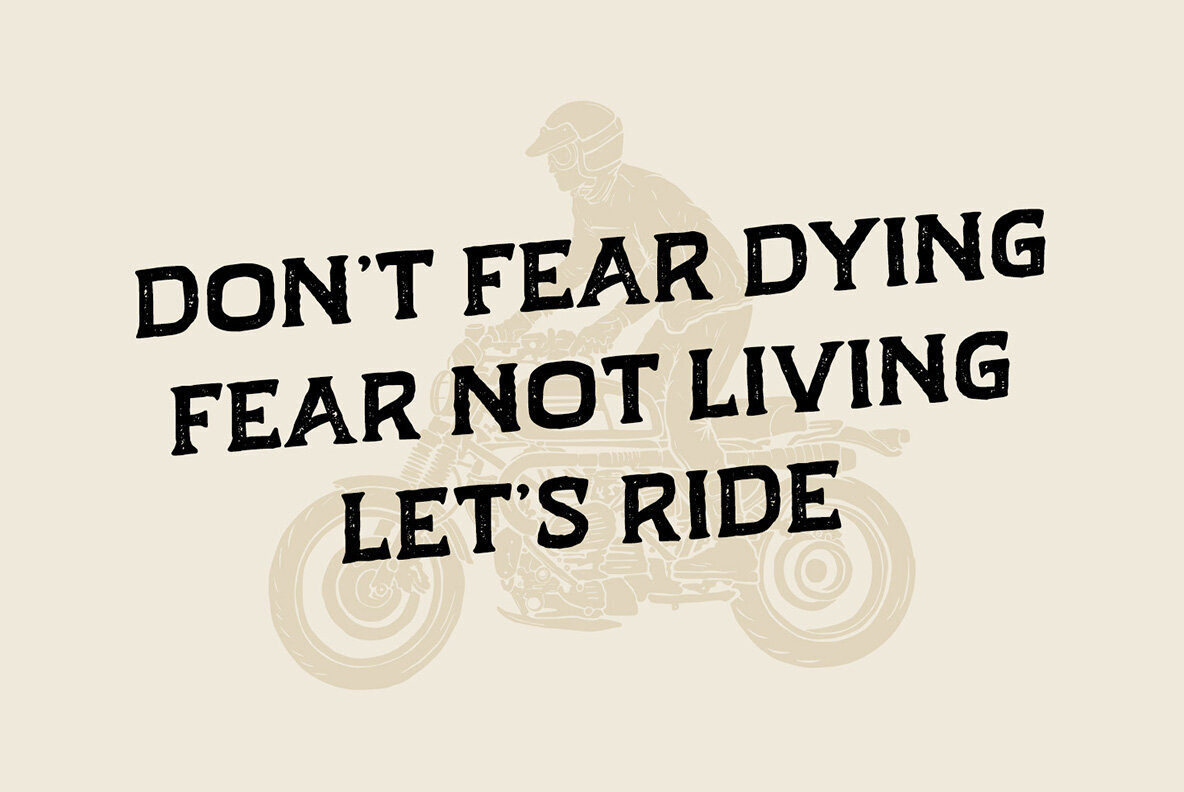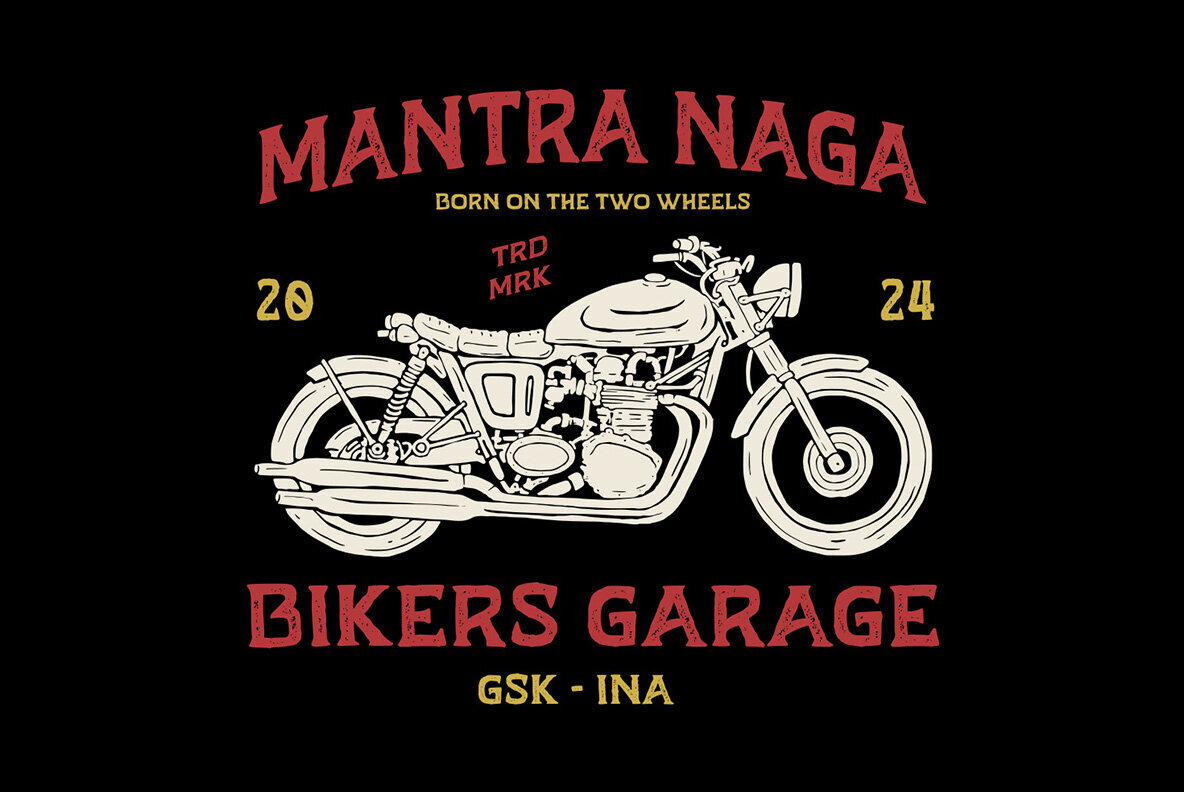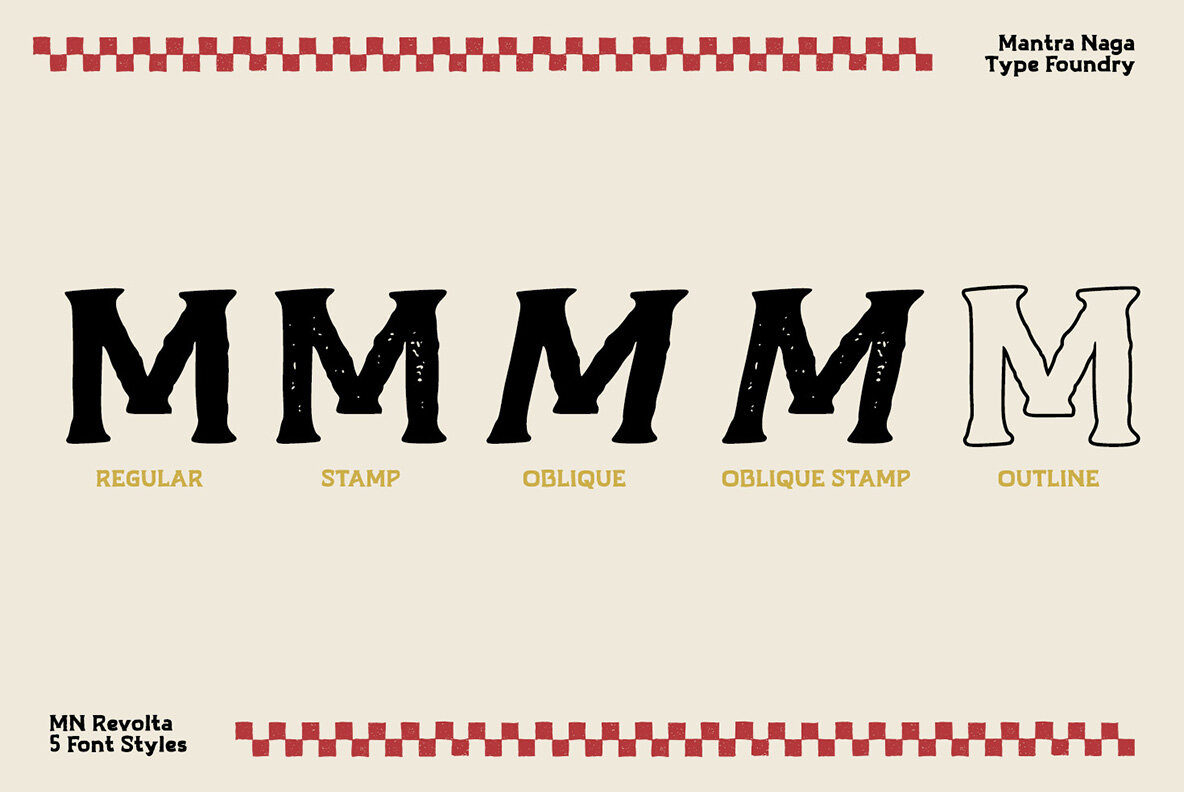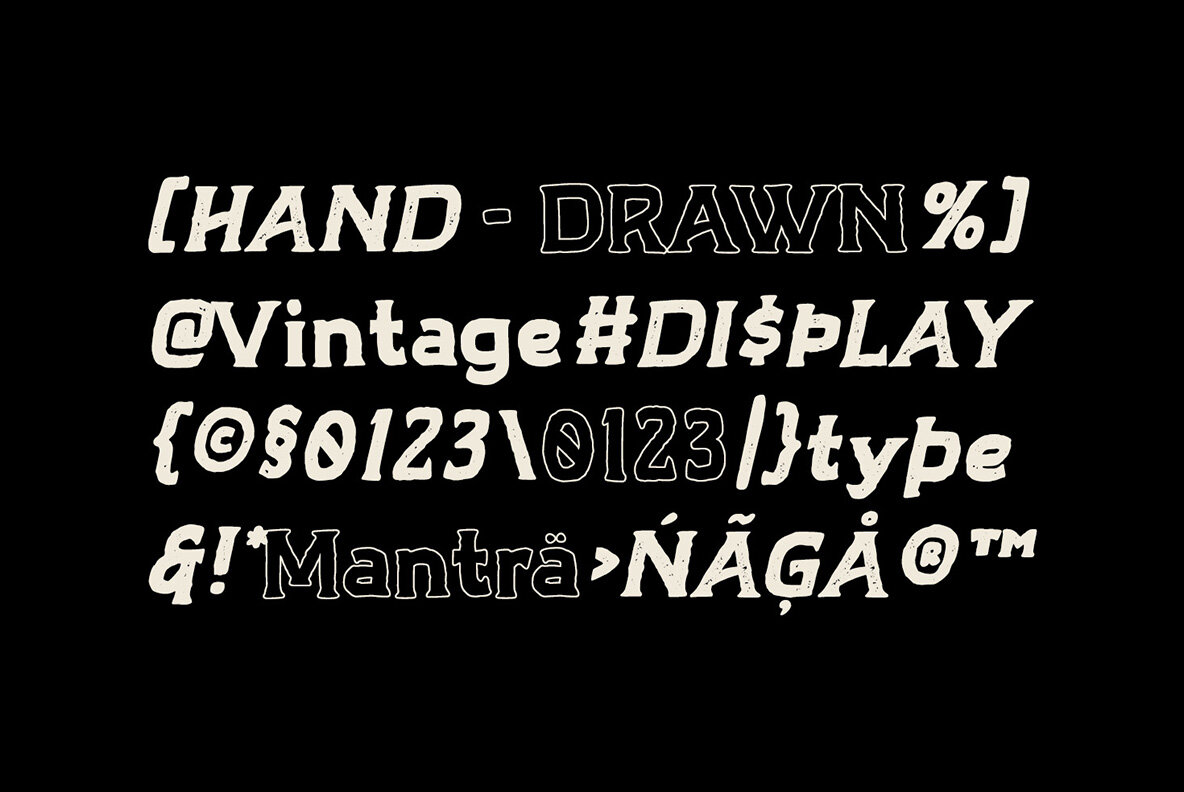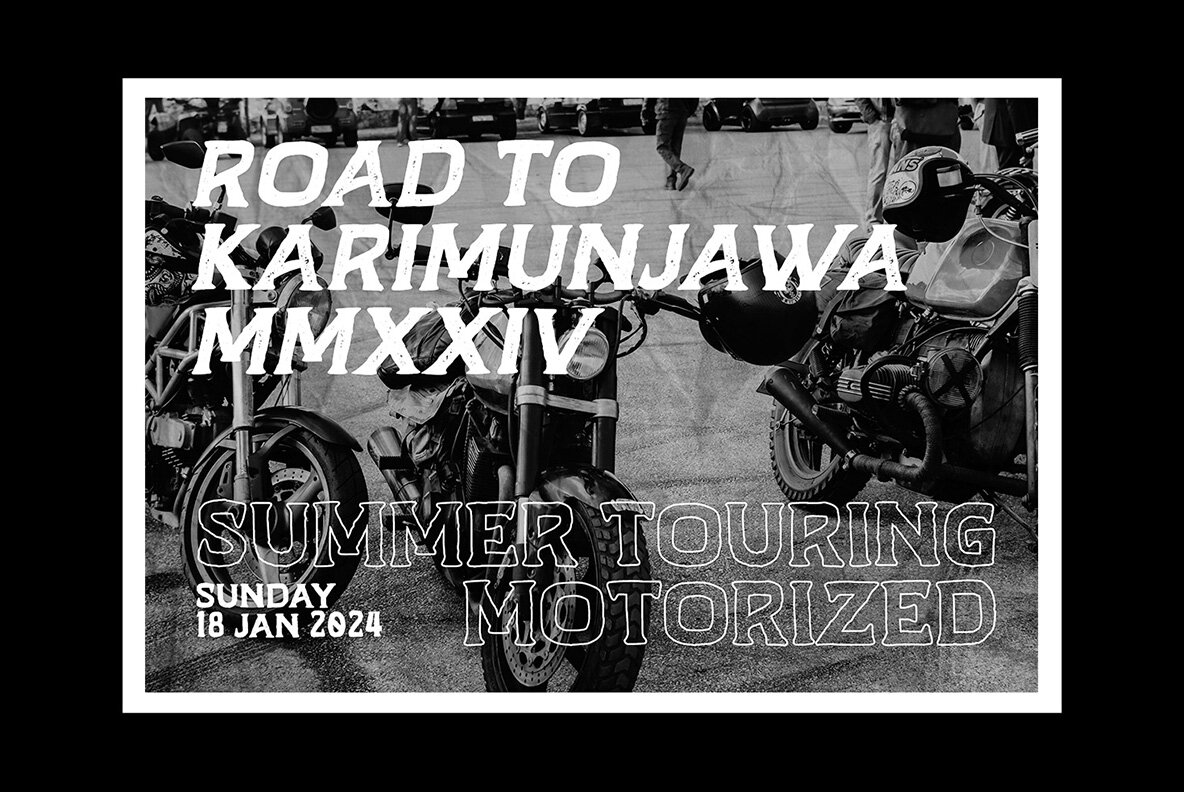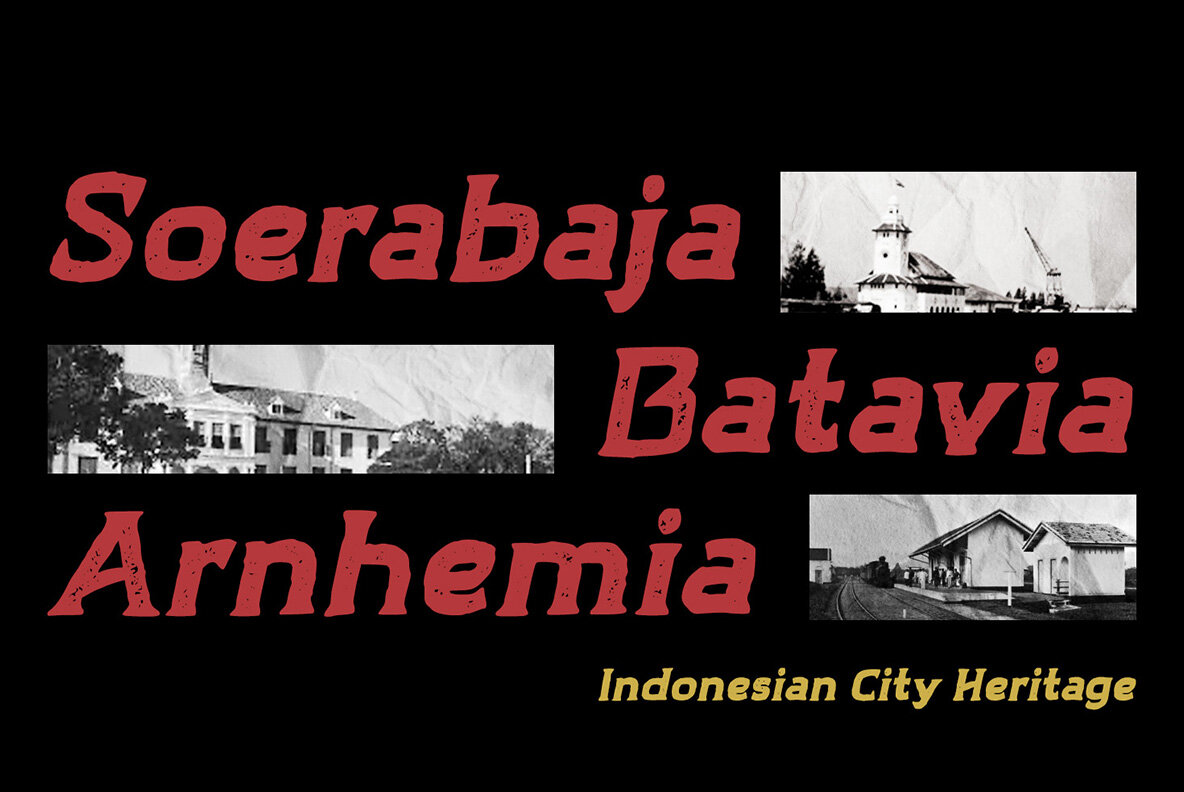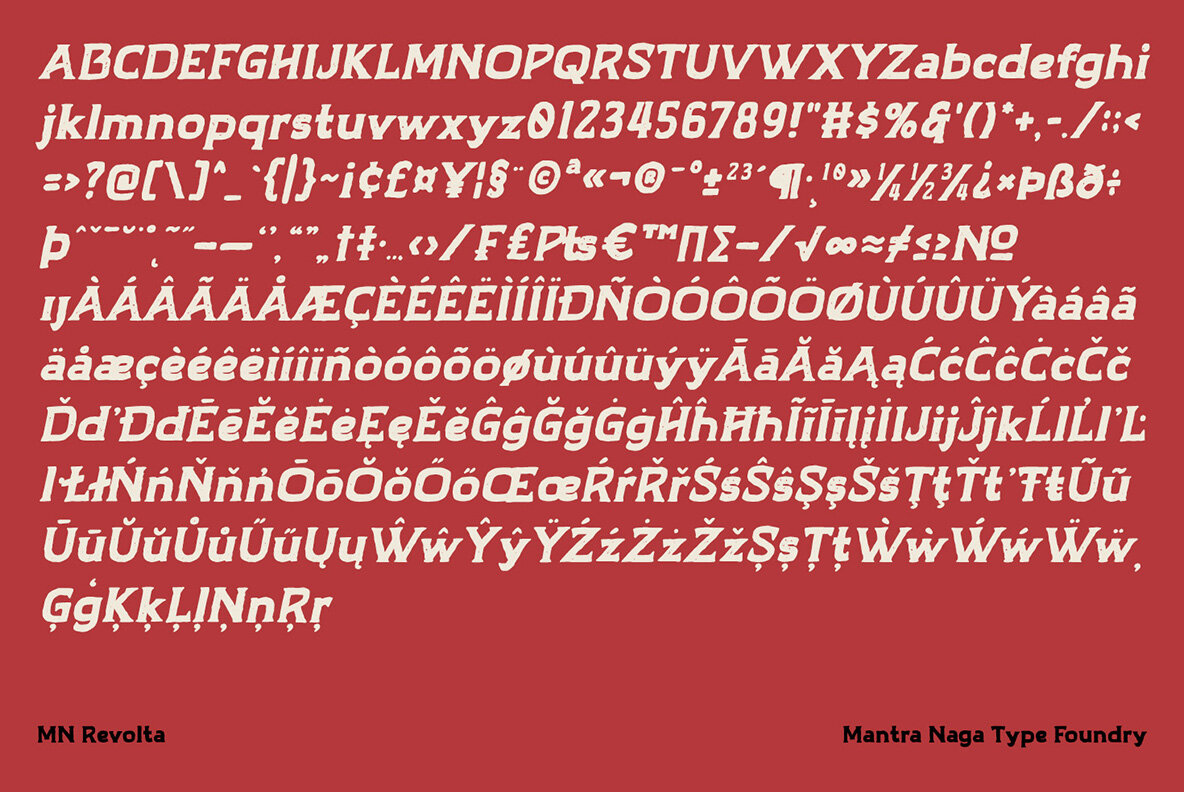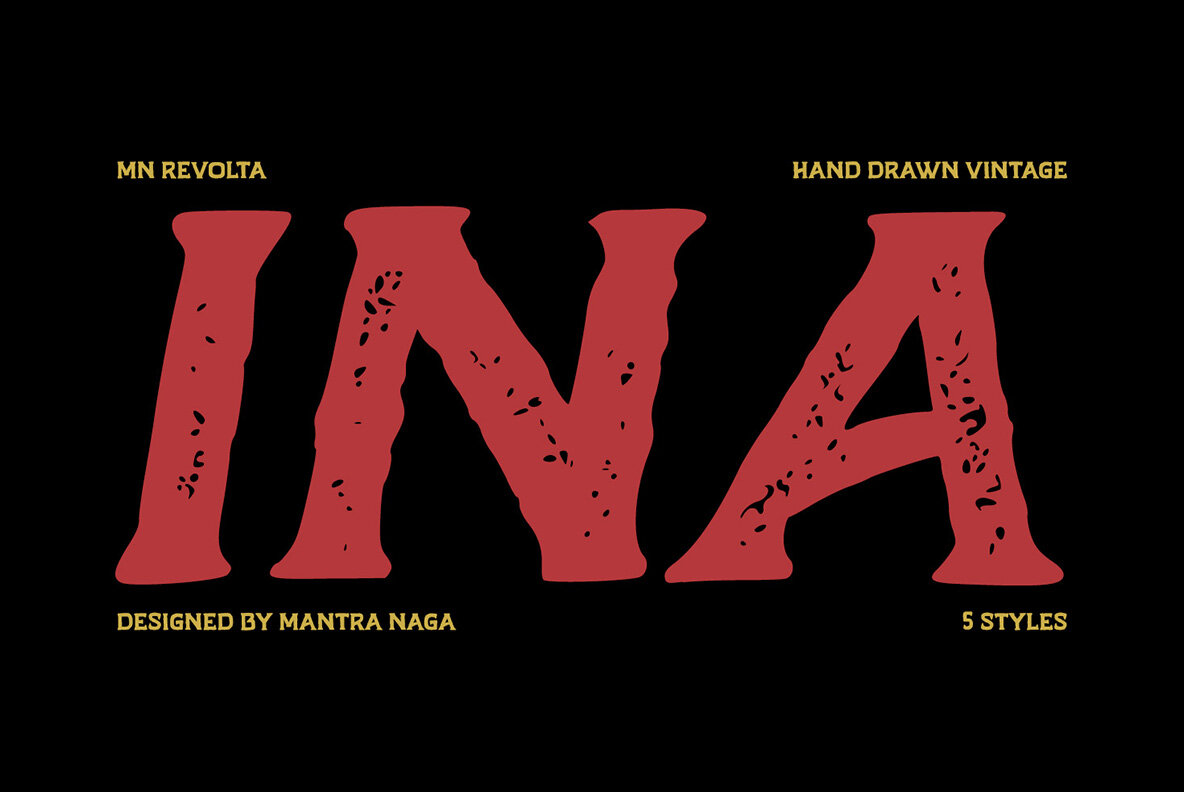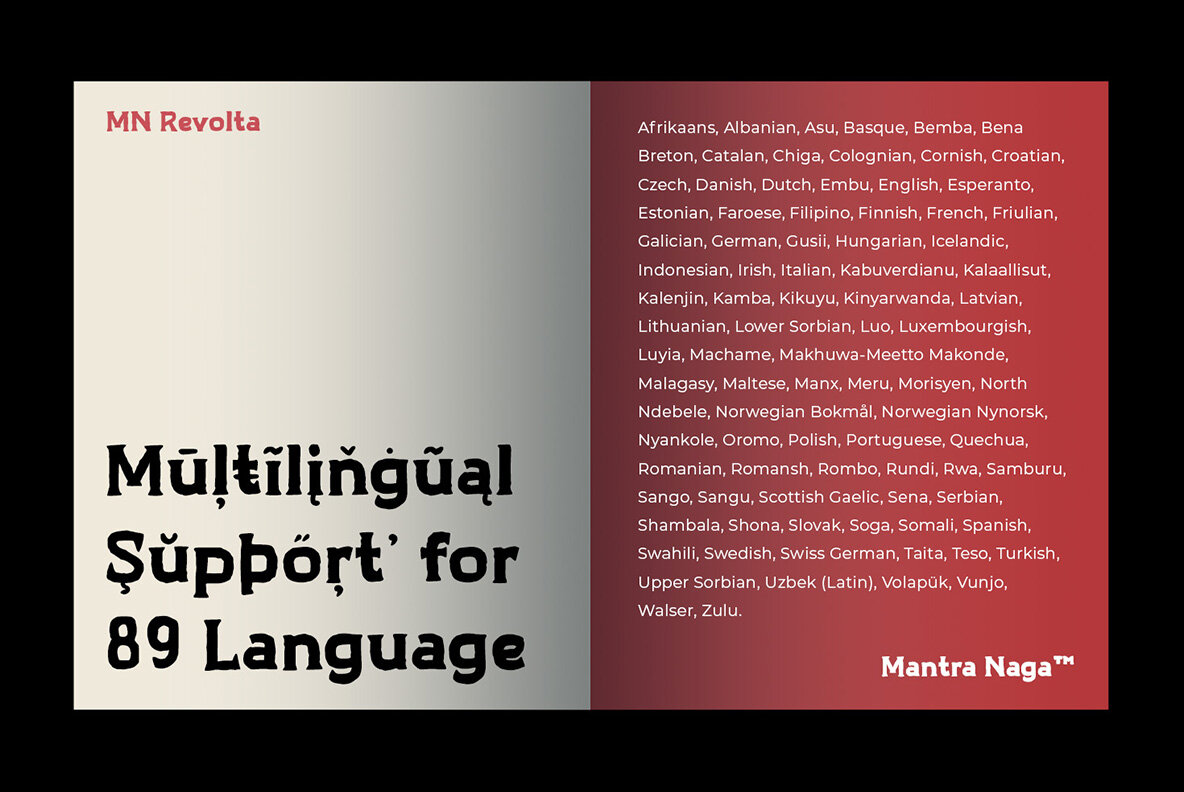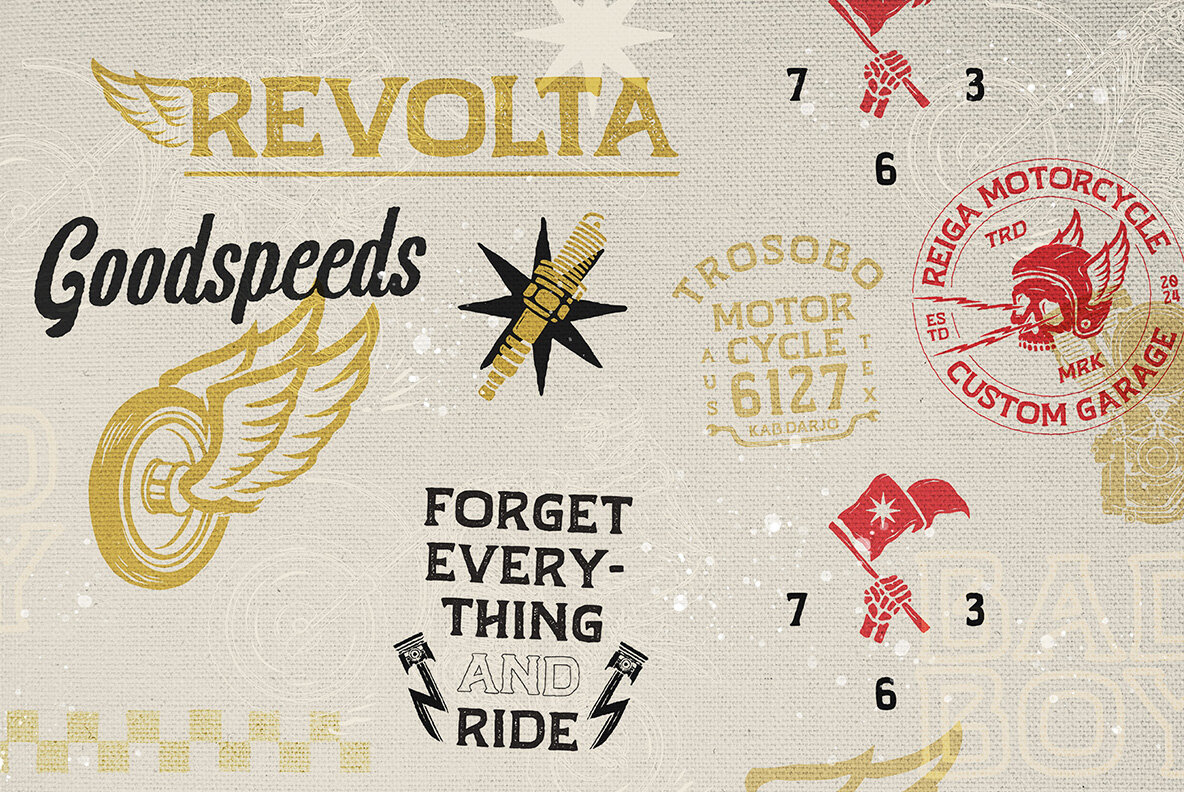
MN Revolta Font
MN Revolta is an organic hand drawn typeface which has 5 styles, regular, stamp, oblique, oblique stamp and outline. Inspired by the uneven shape of stamp spots, this font is made in a grunge style to make it look more authentic so it looks like it was done manually by hand. There are also extra bonus illustrations to make your design even better. This font is very suitable for people who like vintage aesthetics because it gives a classic, old, vintage feel, and looks like it is handmade. Supporting multilingual as many as 89 languages, this font can be used for all designs